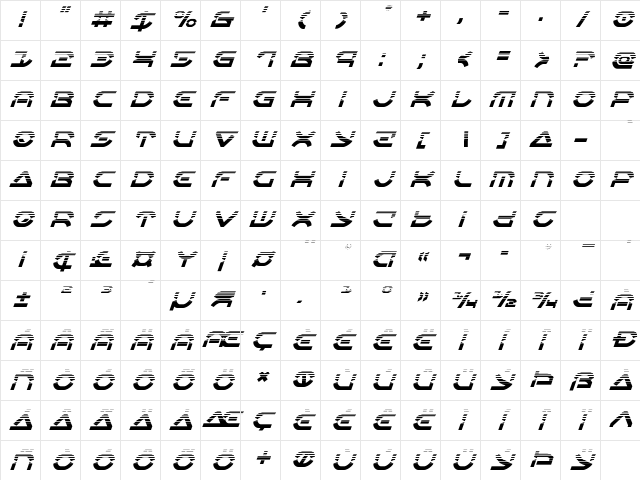
Complete Oberon Deux Halftone Italic Italic glyph index. Displaying only characters natively supported by Oberon Deux Halftone Italic Italic font.
Oberon Deux Halftone Italic is a composed and adaptable typeface that performs quietly and consistently across a wide range of design contexts. The slanted form adds forward momentum and visual energy.